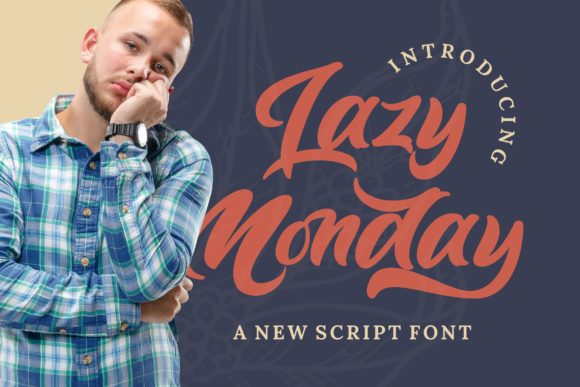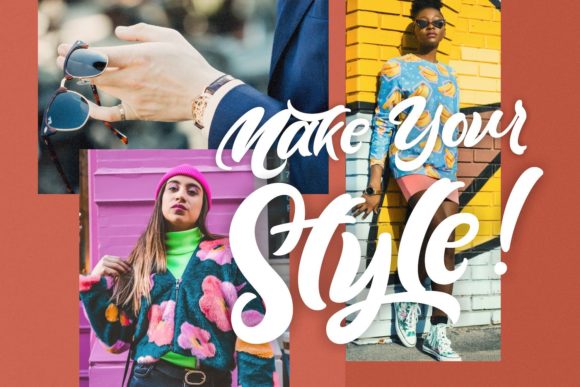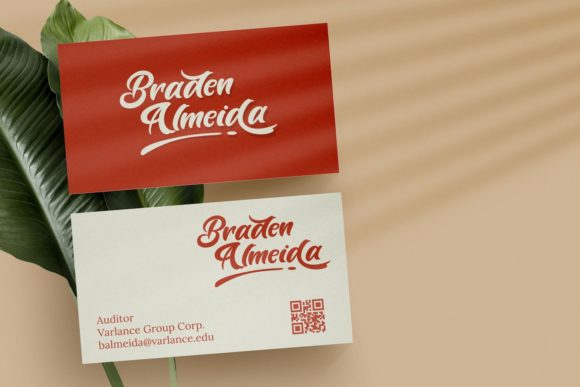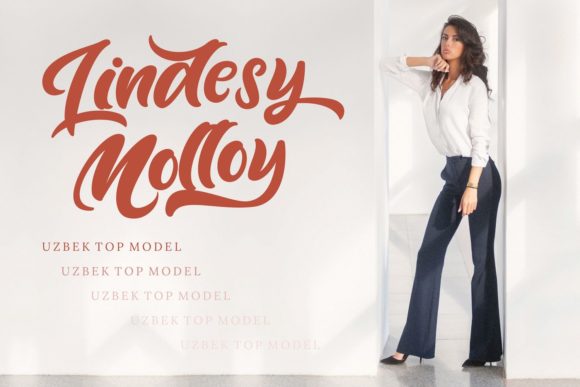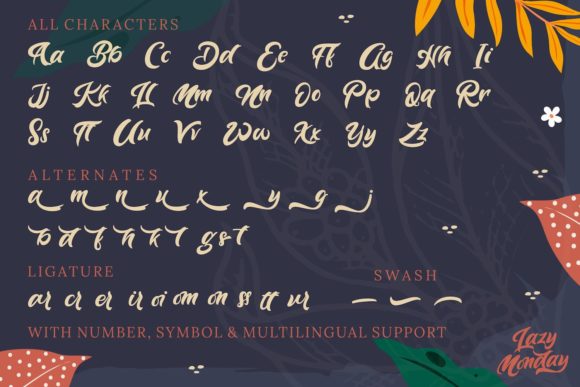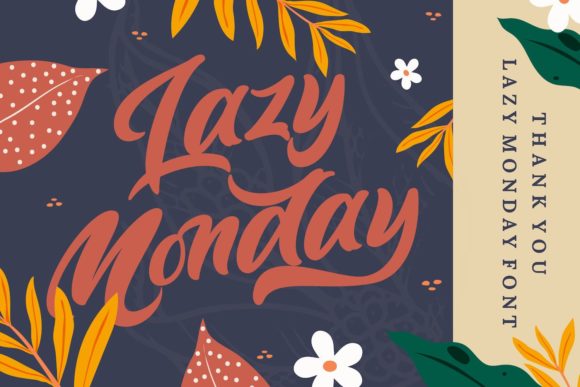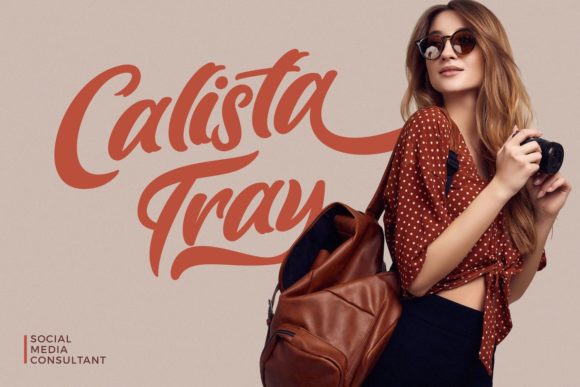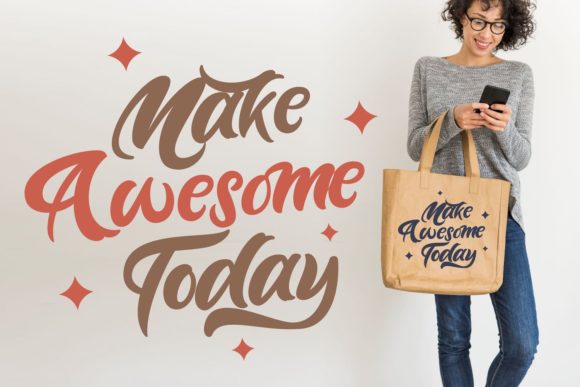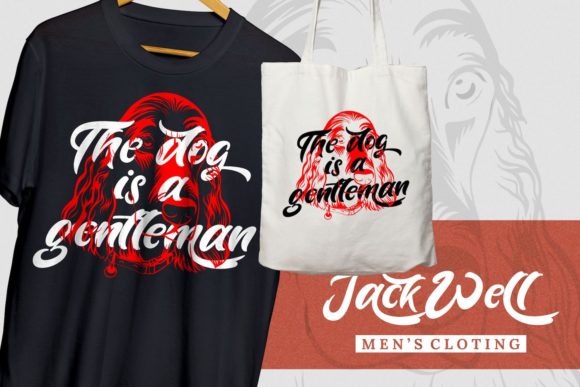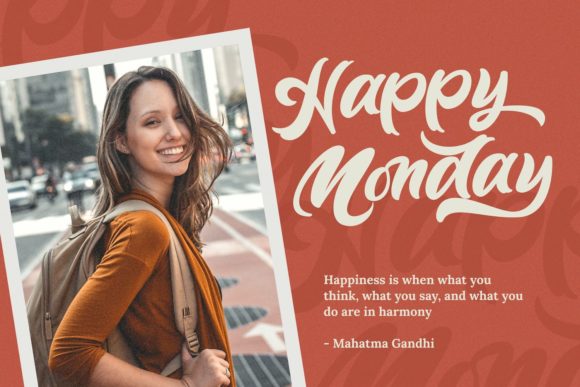
Lazy Monday Font
About Lazy Monday Font
Introducing “Lazy Monday,” a flowing and beautiful handwritten font that exudes relaxation and charm. Its stunning beauty makes it a perfect fit for a wide range of design projects, adding a touch of handcrafted elegance to every creation. Prepare to be captivated by its flowing and well-balanced characters, and watch as it becomes your go-to font for crafting spectacular designs.
With “Lazy Monday,” you have a font that flows with effortless beauty. Its varying baseline and smooth lines create a sense of fluidity and relaxation, bringing a laid-back vibe to your designs. Whether you’re working on quotes, branding materials, or social media graphics, this font adds an air of ease and elegance that leaves a lasting impression.
The PUA encoding of “Lazy Monday” allows you to access all of the glyphs and swashes with ease, giving you creative freedom to customize and personalize your designs.
Unleash your creativity and watch how “Lazy Monday” enhances your designs with its beautiful and versatile touch. Whether you’re crafting heartfelt messages, designing gentle logos, or creating calming stationery, this font will bring a sense of beauty and authenticity that captivates your audience.
So, fall in love with the ease and elegance of “Lazy Monday” and let it become your creative companion. Allow its flowing and beautiful style to inspire your designs, turning them into spectacular works of art. Whether you’re a seasoned designer or a passionate enthusiast, “Lazy Monday” empowers you to create visuals that stand out and make a statement. Let “Lazy Monday” be the key to unlocking the versatility and charm in your designs, and watch as it takes your projects to new levels of creativity and enchantment!